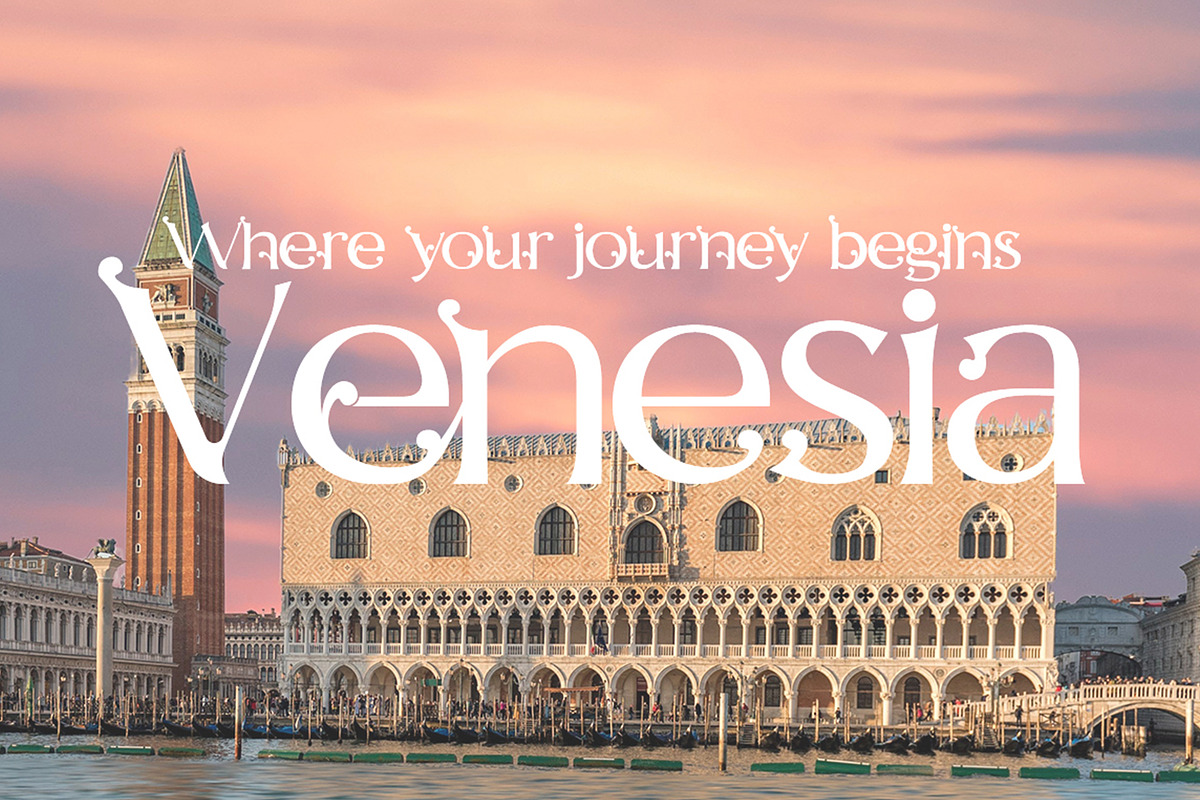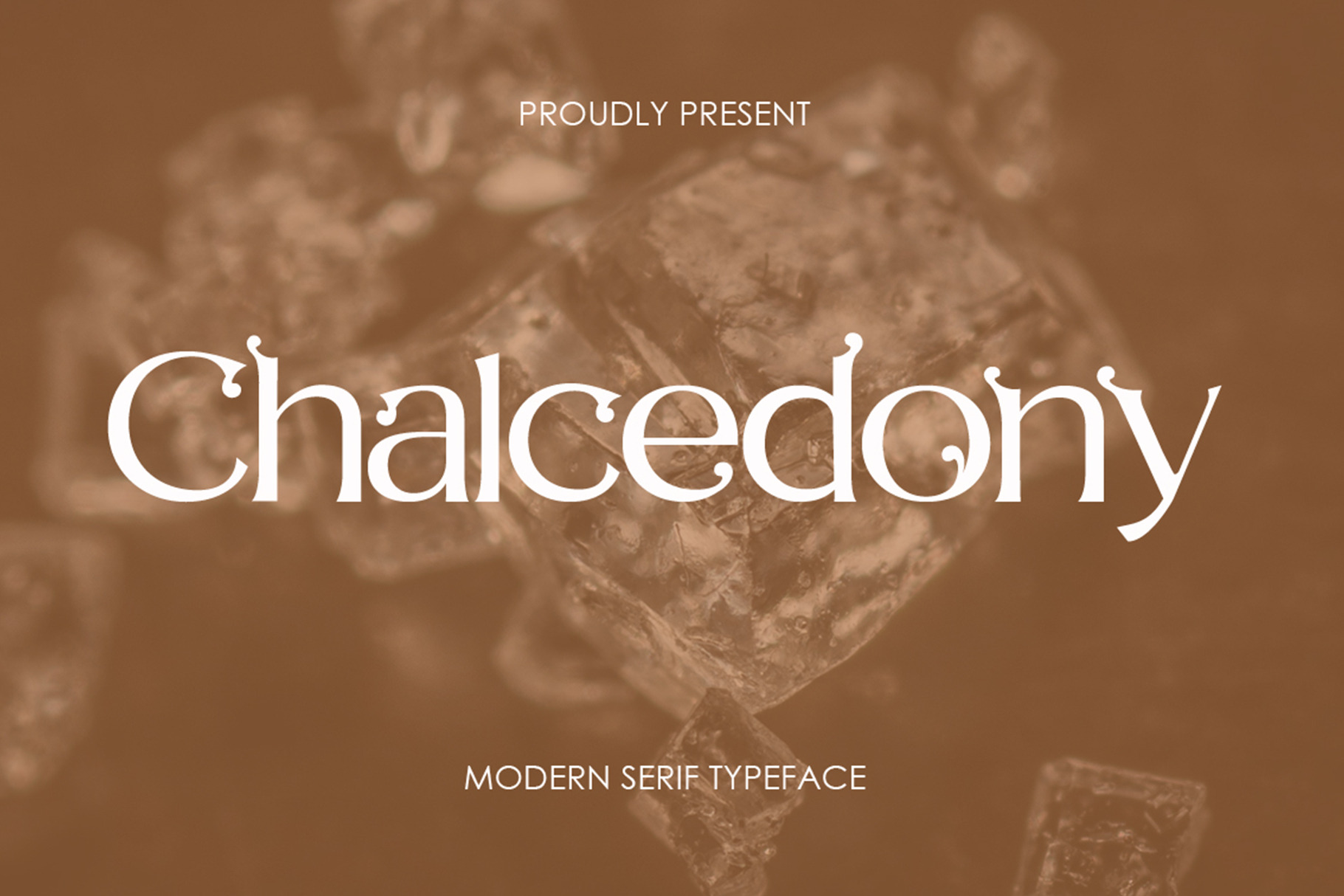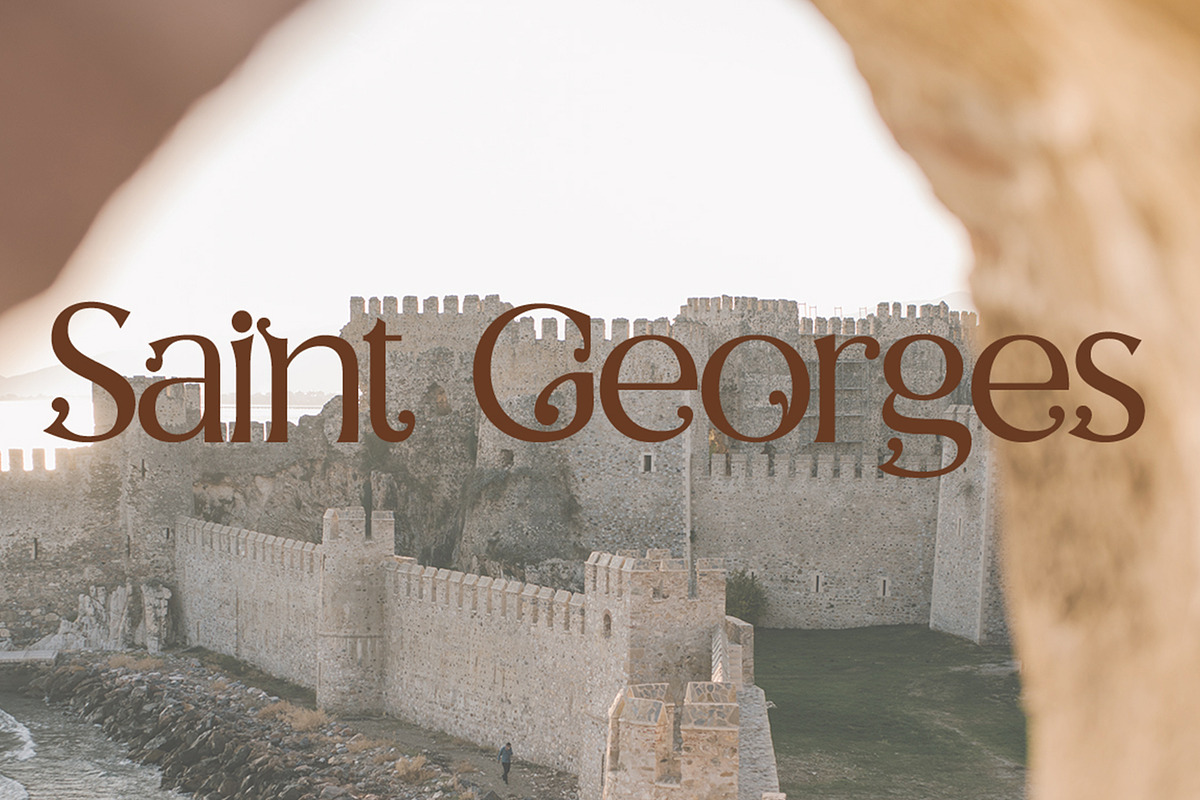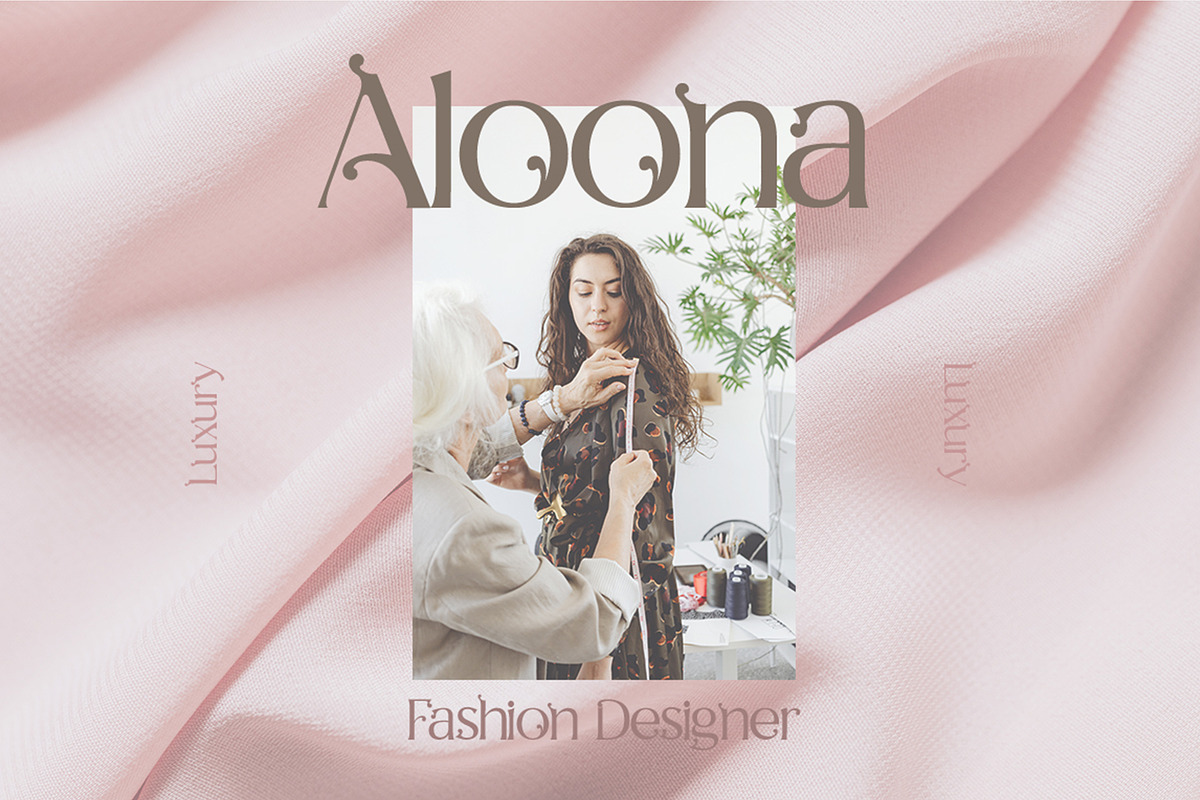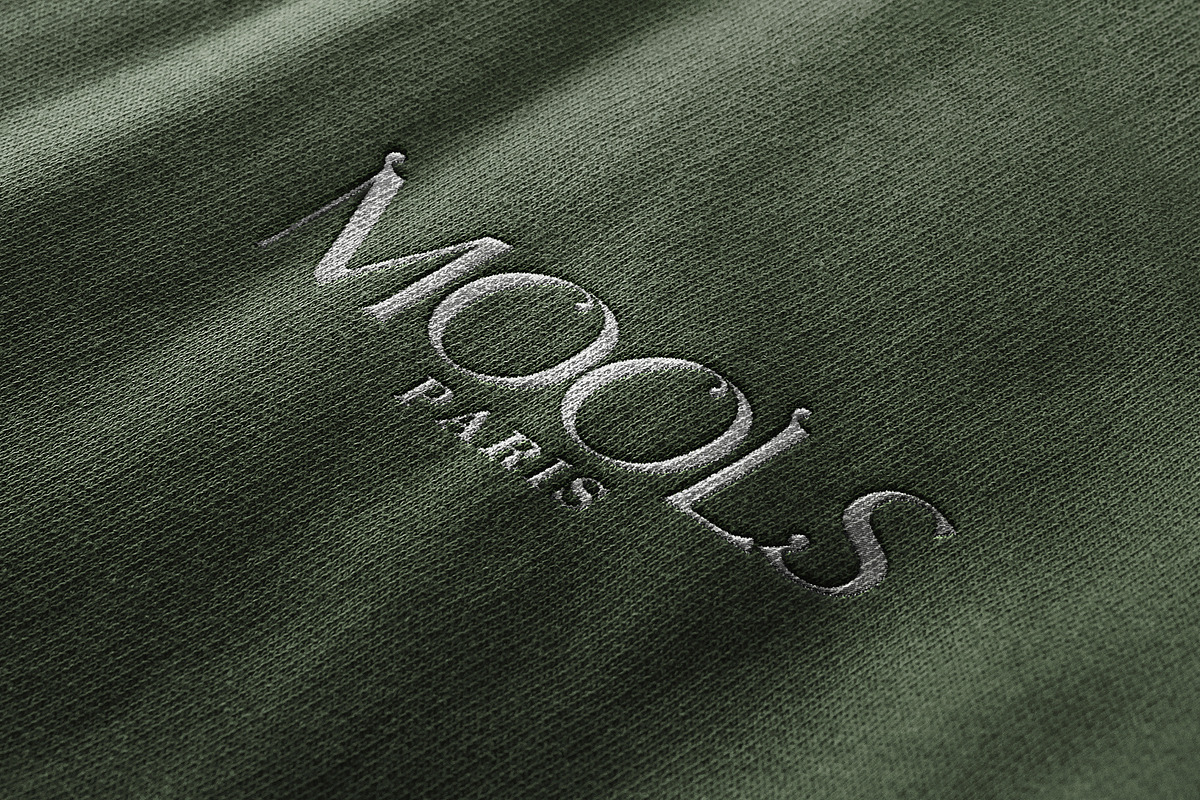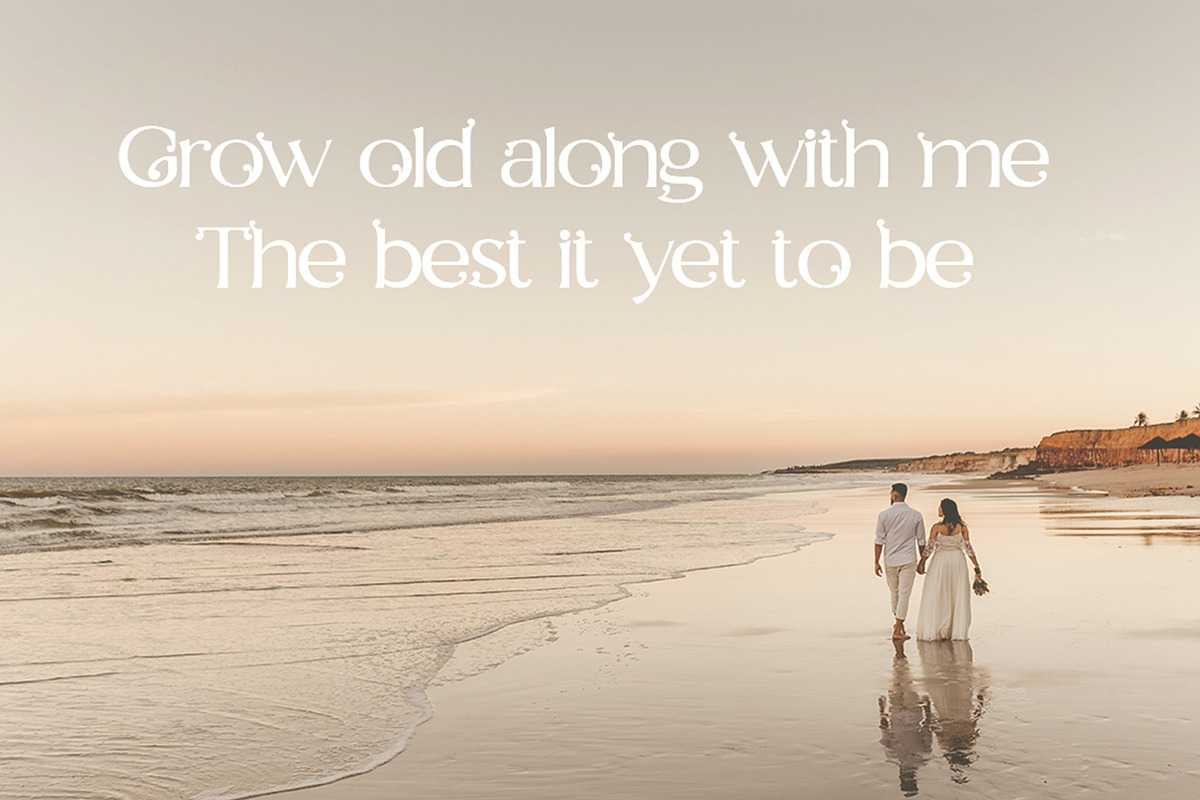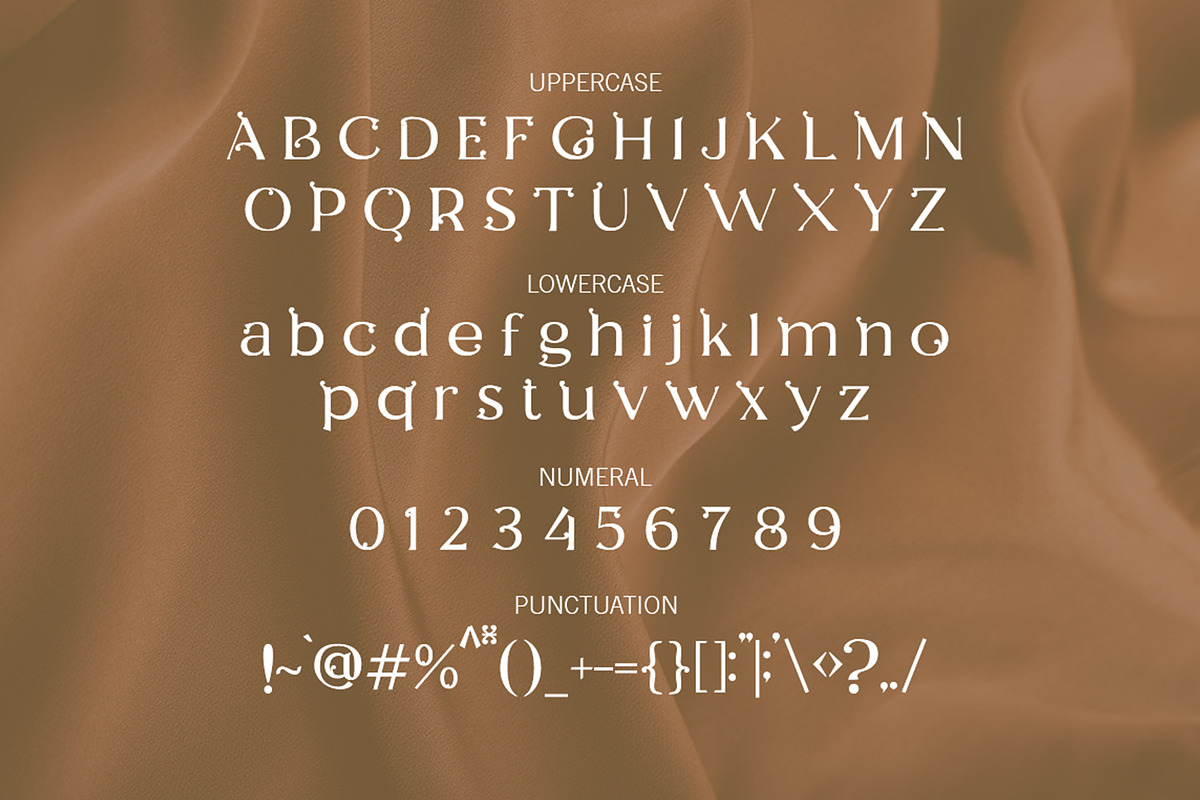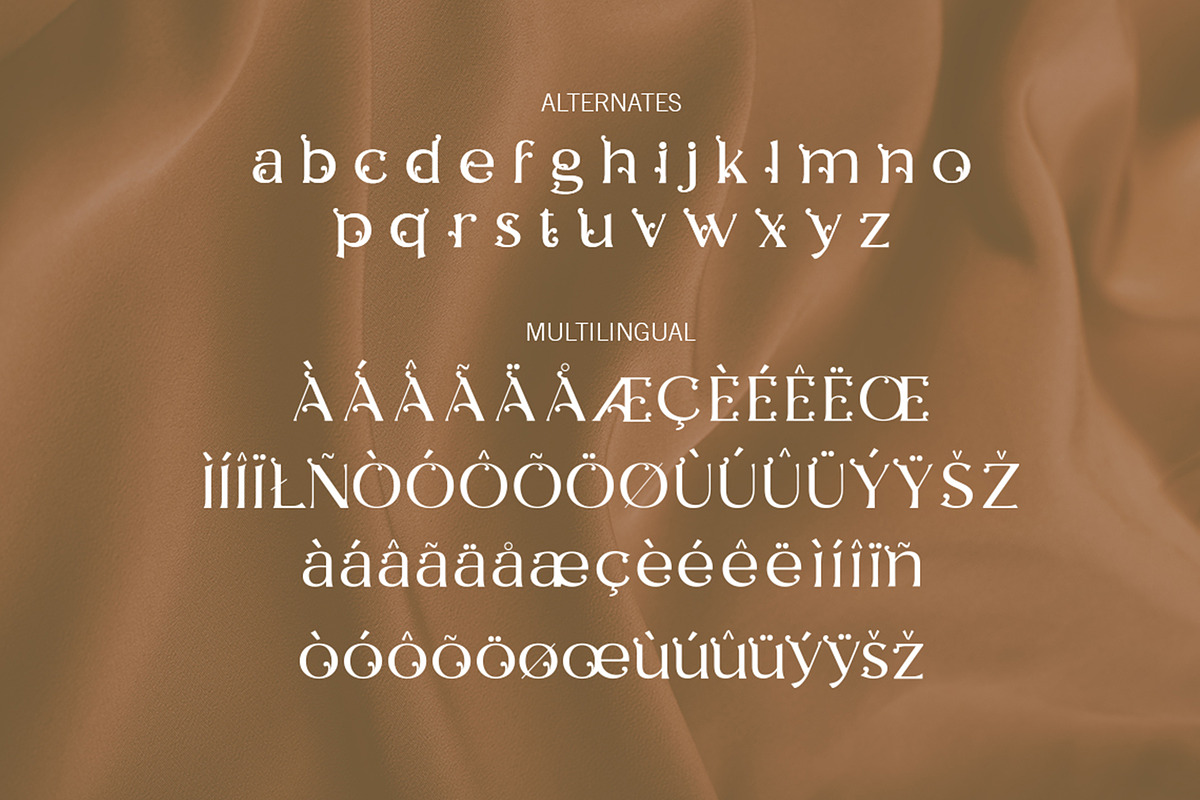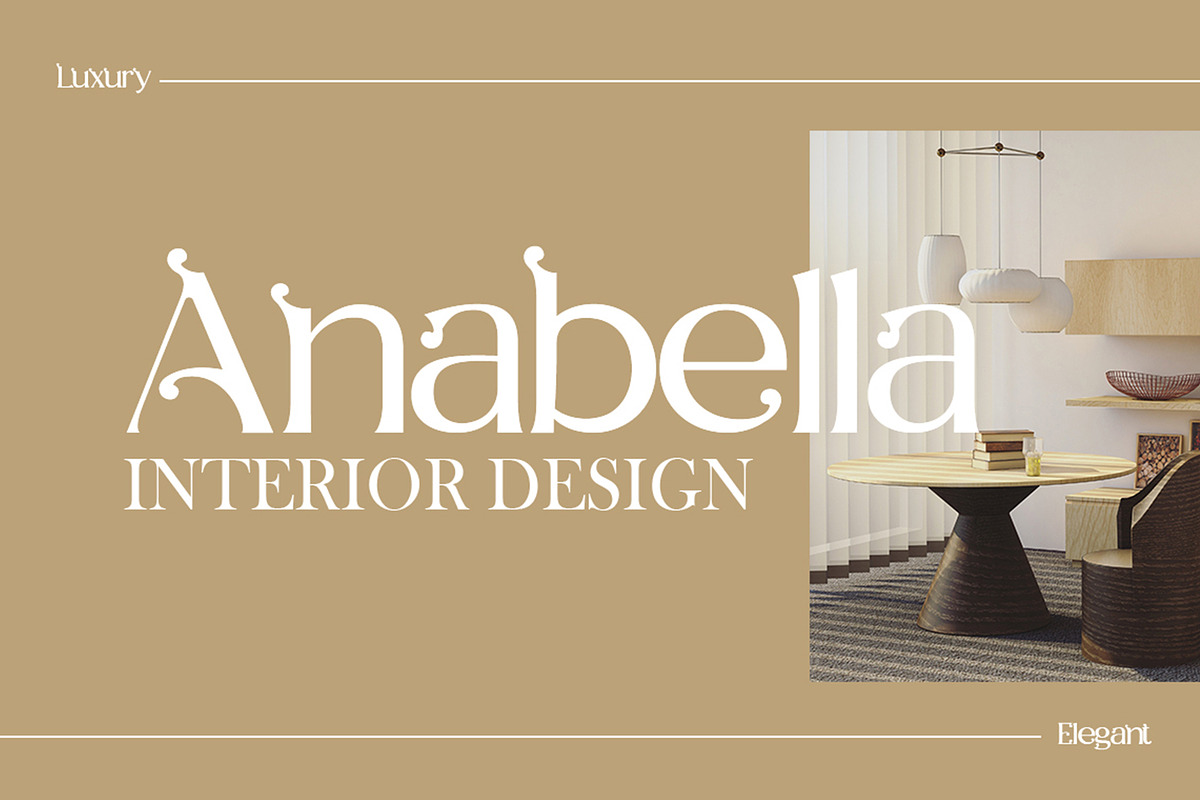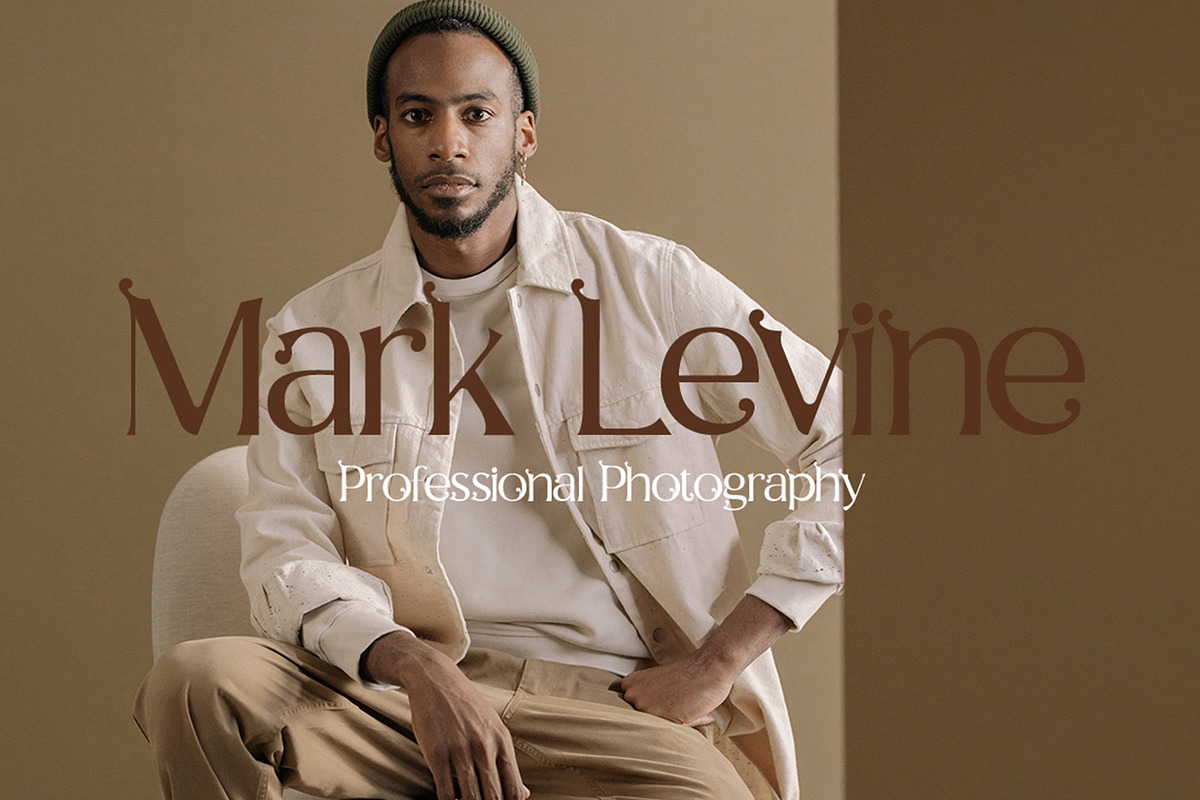
Chalcedony | Modern Serif Font
Proudly present Chalcedony Typeface, A serif modern and classic typeface that has own unique style & modern look. This typeface is perfect for an elegant & luxury logo, book or movie title design, fashion brand, magazine, clothes, lettering, quotes, and so much more.